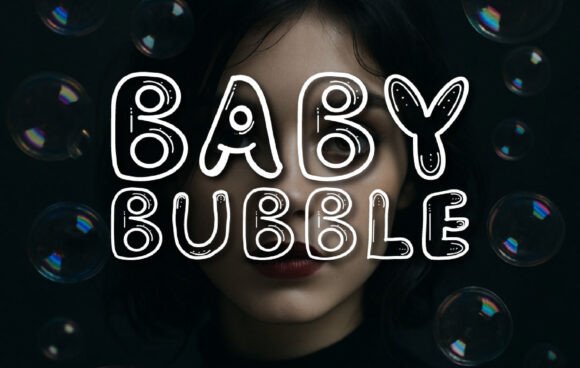
Baby Bubble Font: The Ultimate Guide to This Charming Handwritten Font
Are you looking for a font that can add a touch of romance and whimsy to your designs? Look no further than the Baby Bubble font. This authentic handwritten font is expertly designed to be a true favorite among designers, and its potential to elevate your creative ideas is limitless. In this article, we’ll take a closer look at the Baby Bubble font, its features, and how you can use it to take your designs to the next level.
What is Baby Bubble Font?
Baby Bubble font is a beautiful, handwritten font that exudes a romantic touch. Its unique and elegant design makes it perfect for a wide range of design projects, from magazine headlines to social media graphics, branding, wedding invitations, and more. The font is highly legible, making it suitable for use as both title and body text.
Features of Baby Bubble Font
The Baby Bubble font has several features that make it a standout choice for designers. Some of its key features include:
- Authentic Handwritten Design: The Baby Bubble font is designed to look like it was written by hand, giving it a personal and unique touch.
- Romantic Touch: The font has a romantic and whimsical feel to it, making it perfect for designs that require a touch of elegance.
- High Legibility: The font is highly legible, making it suitable for use as both title and body text.
- Versatile: The Baby Bubble font can be used for a wide range of design projects, from magazine headlines to social media graphics, branding, wedding invitations, and more.
Uses of Baby Bubble Font
The Baby Bubble font is a versatile font that can be used for a wide range of design projects. Here are some ideas for using this font:
- Magazine Headlines: The Baby Bubble font is perfect for use in magazine headlines, where its elegant and romantic design can help grab the reader’s attention.
- Social Media Graphics: The font can be used to create eye-catching social media graphics, such as Facebook posts, Instagram stories, and Twitter headers.
- Branding: The Baby Bubble font can be used as a brand font, adding a touch of elegance and sophistication to a company’s branding.
- Wedding Invitations: The font’s romantic design makes it perfect for use in wedding invitations, where it can help set the tone for a beautiful and elegant wedding.
- Cards: The Baby Bubble font can be used to create beautiful and elegant cards for special occasions, such as birthdays, anniversaries, and holidays.
Benefits of Using Baby Bubble Font
There are several benefits to using the Baby Bubble font in your designs. Some of the key benefits include:
- Elegant Design: The font’s elegant and romantic design can help elevate your designs and give them a touch of sophistication.
- High Legibility: The font’s high legibility makes it easy to read, even at small sizes.
- Versatile: The Baby Bubble font can be used for a wide range of design projects, making it a great addition to any designer’s toolkit.
- Unique: The font’s unique design helps it stand out from other fonts, making it a great choice for designers who want to create something truly special.
Tips for Using Baby Bubble Font
Here are some tips for using the Baby Bubble font:
- Use it Sparingly: While the Baby Bubble font is beautiful, it can be overwhelming if used too much. Use it sparingly to create a focal point in your design.
- Pair it with Other Fonts: The Baby Bubble font can be paired with other fonts to create a unique and interesting design.
- Experiment with Colors: The font looks great in a variety of colors, so don’t be afraid to experiment and find the perfect color for your design.
The Baby Bubble font is a beautiful and elegant font that can add a touch of romance and whimsy to your designs. Its unique and authentic handwritten design makes it perfect for a wide range of design projects, from magazine headlines to social media graphics, branding, wedding invitations, and more. With its high legibility and versatility, the Baby Bubble font is a great addition to any designer’s toolkit.